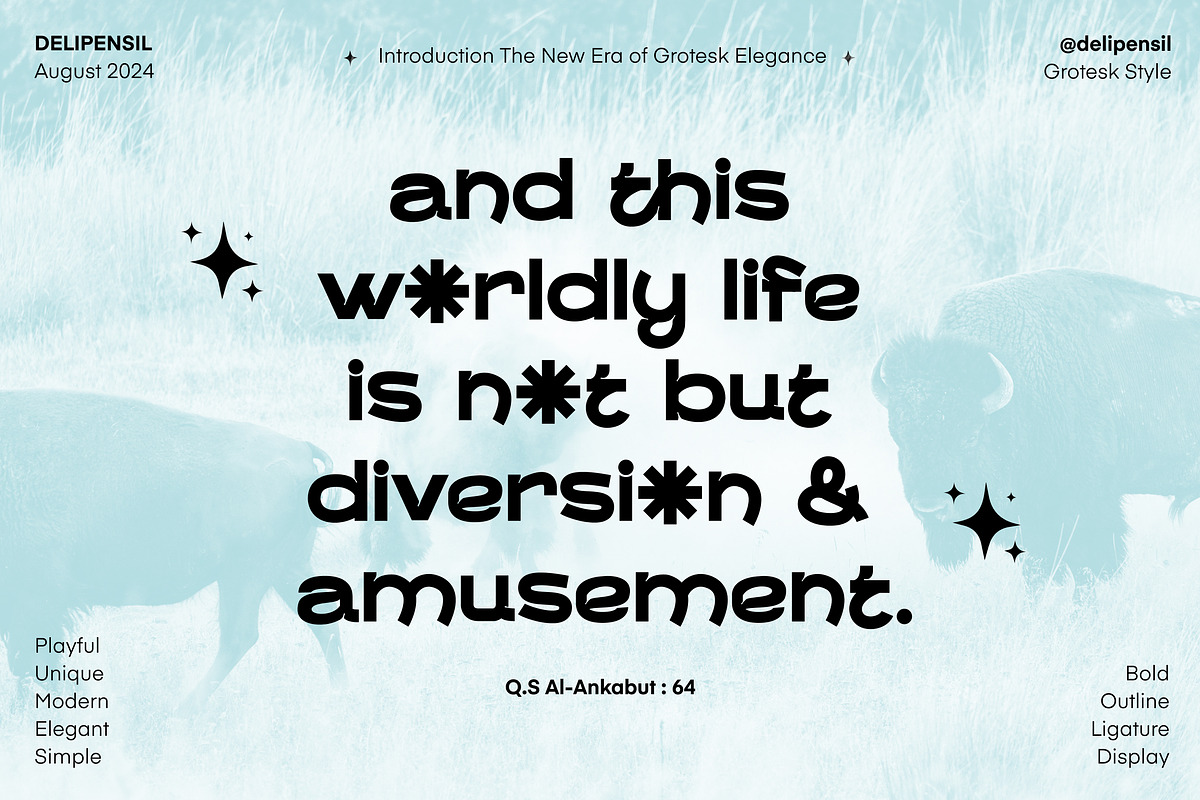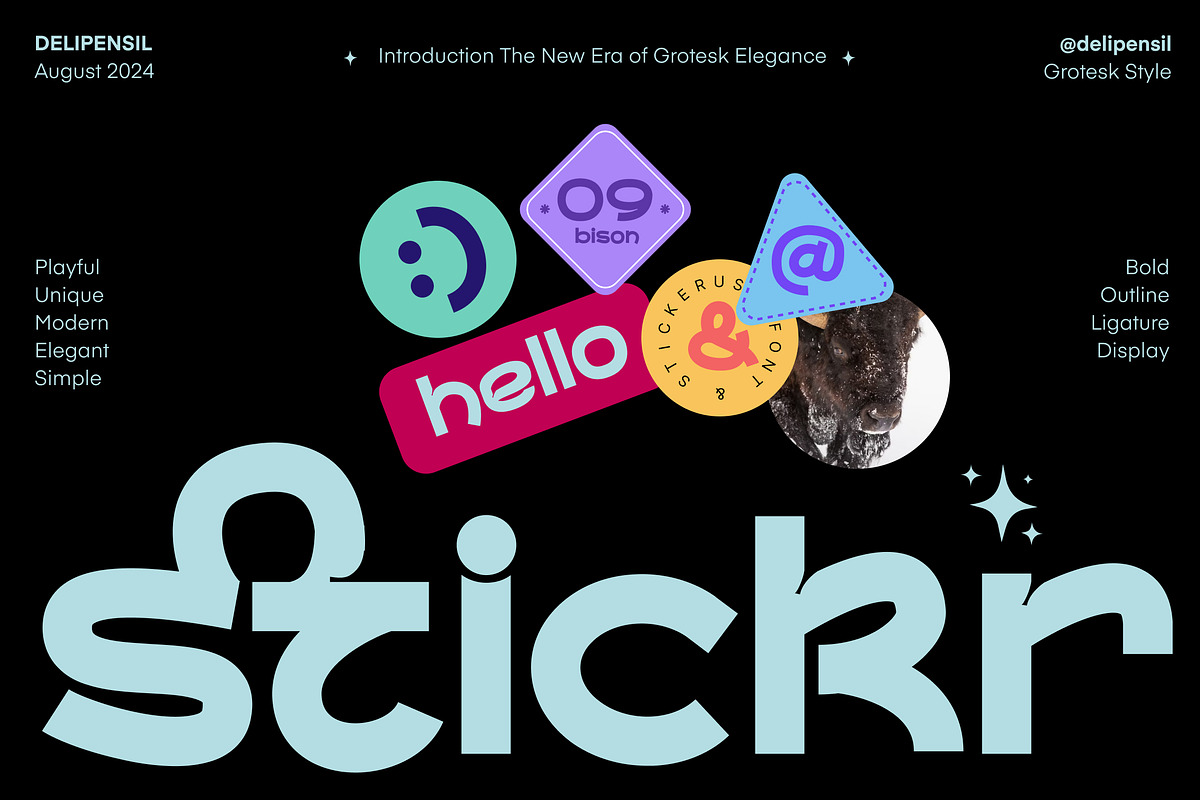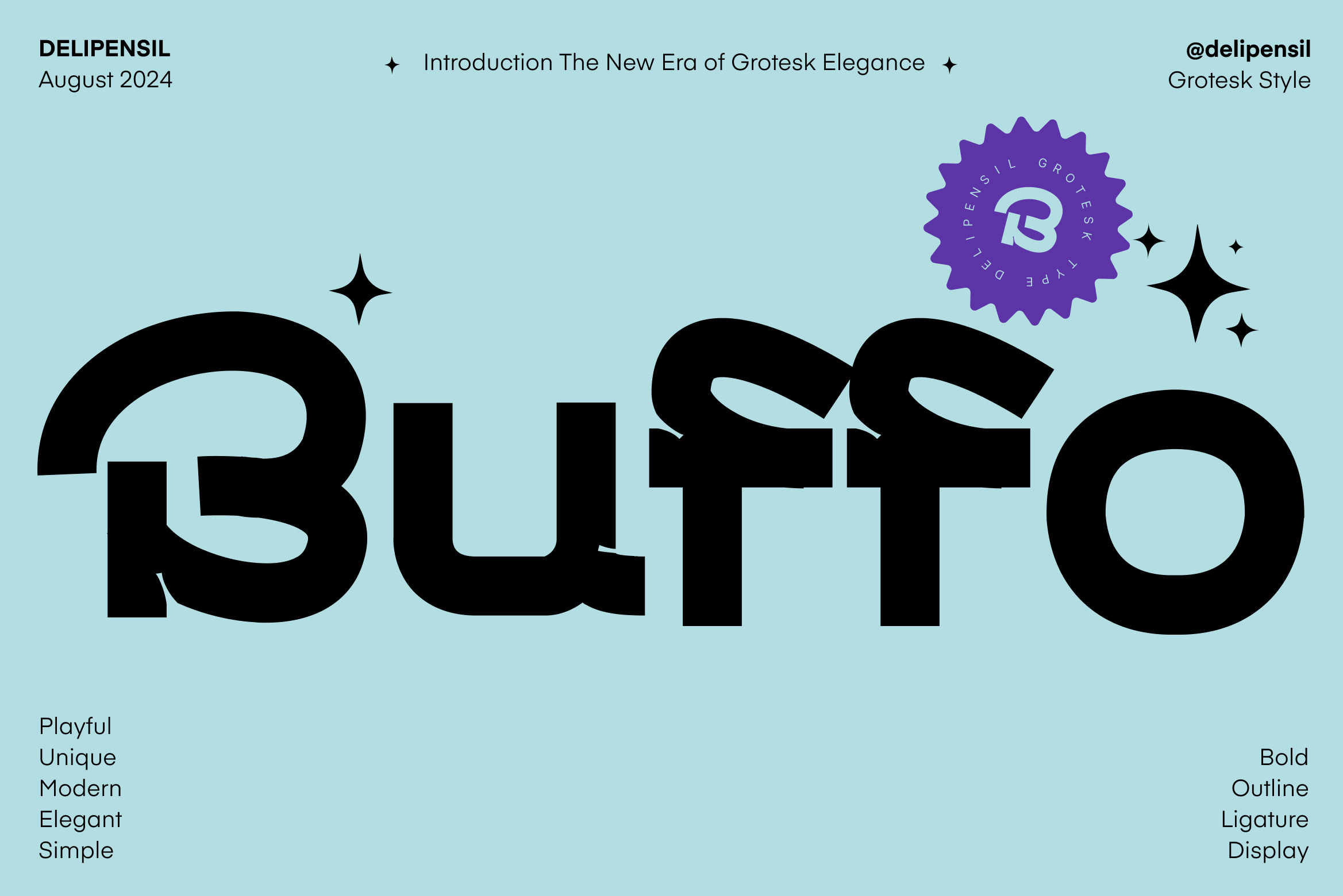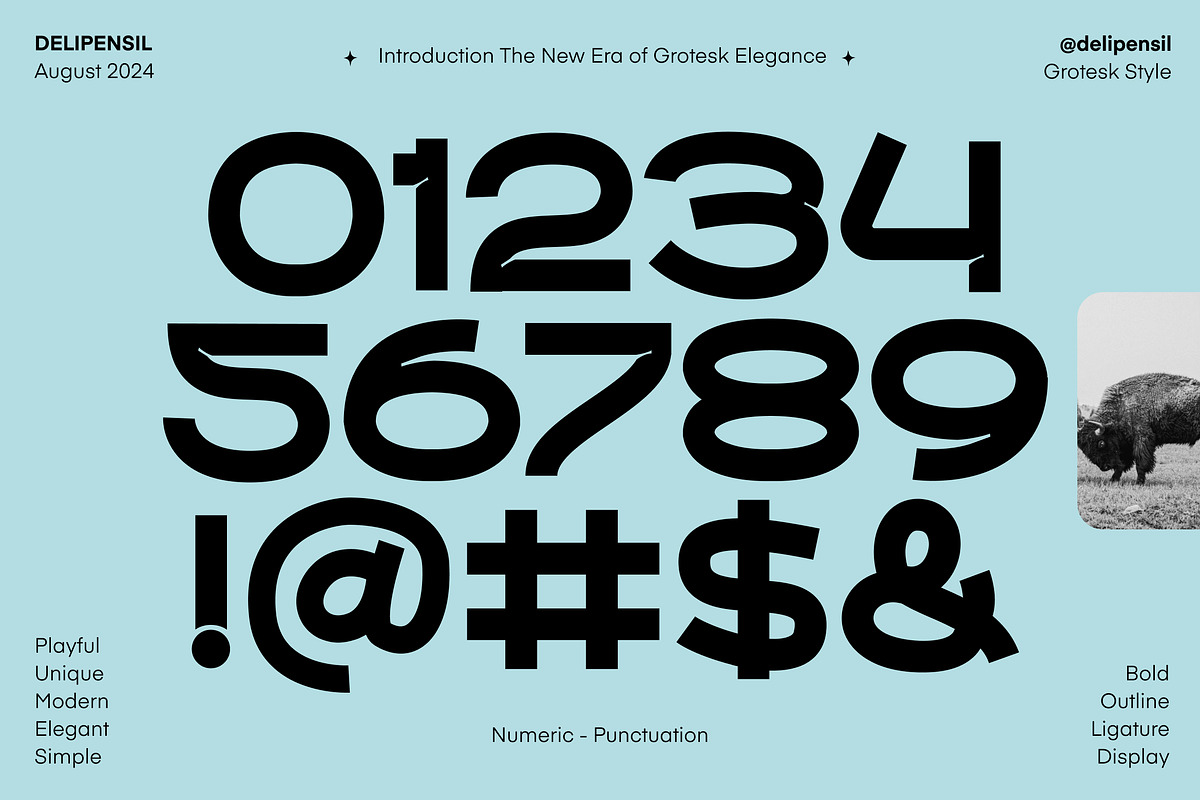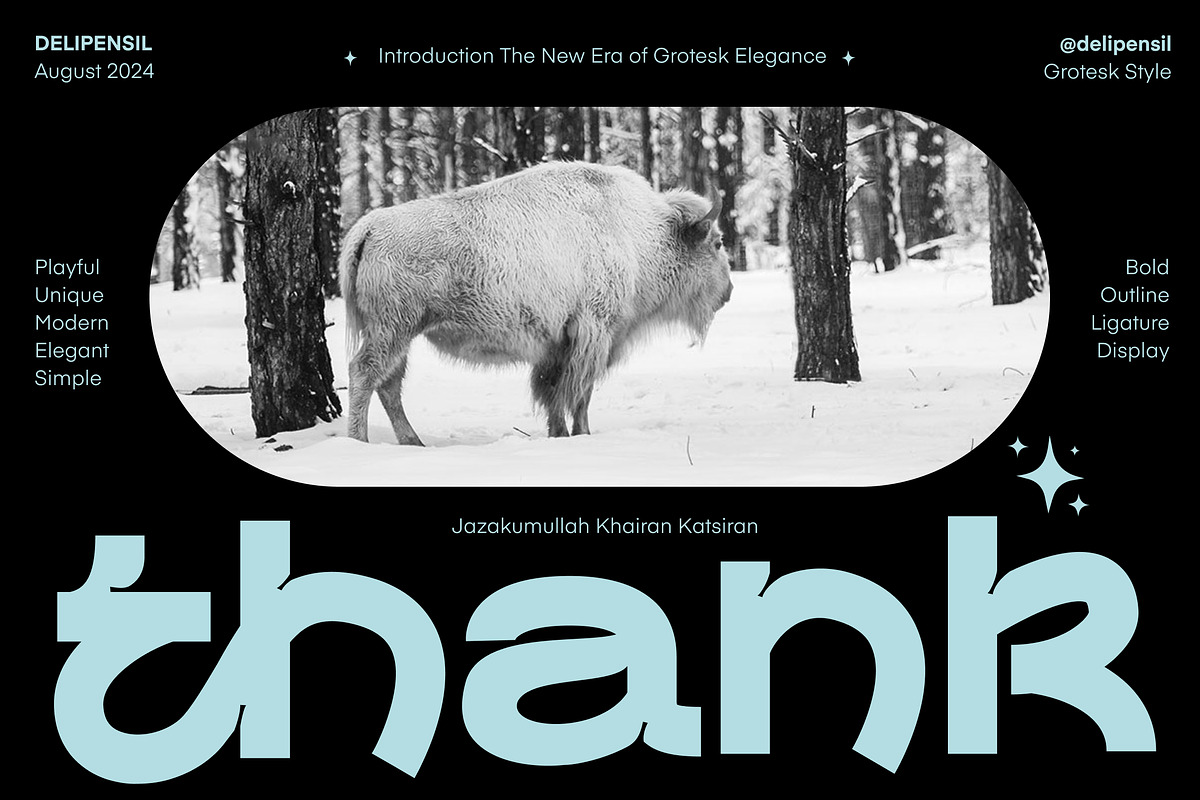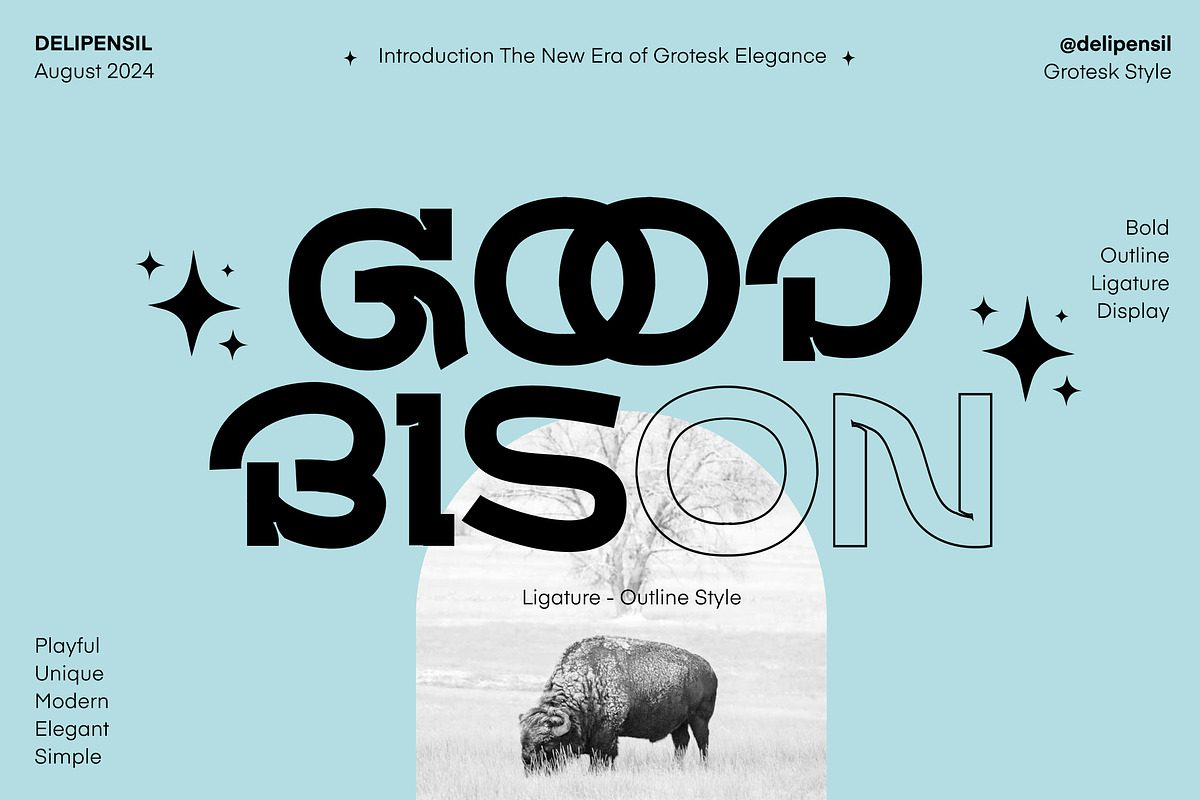
Buffo - Grotesk Typeface
Bismillah, Introduction Buffo - Modern Grotesk Typeface
Discover Buffo - Grotesk Typeface, Where modern design meets ultimate versatility. Elevate your brand with this sleek, sophisticated font